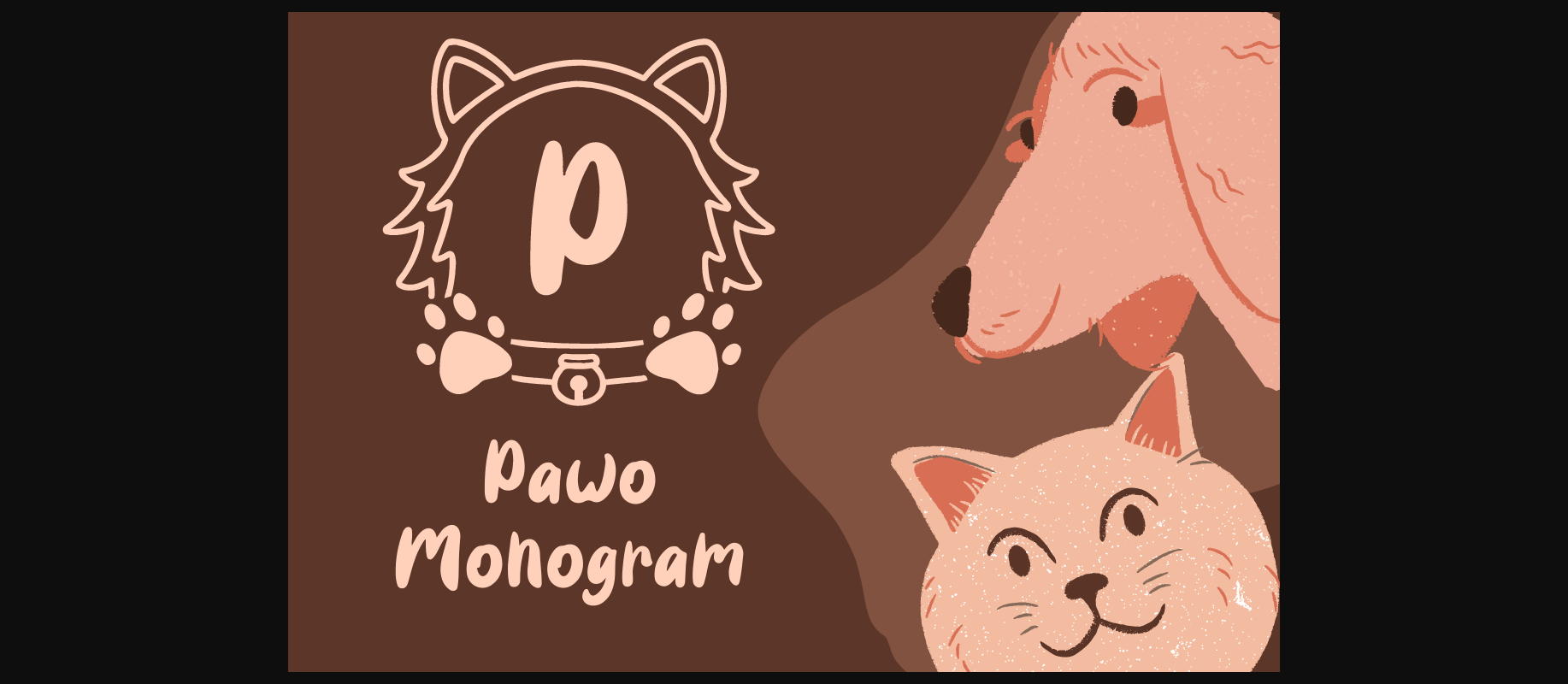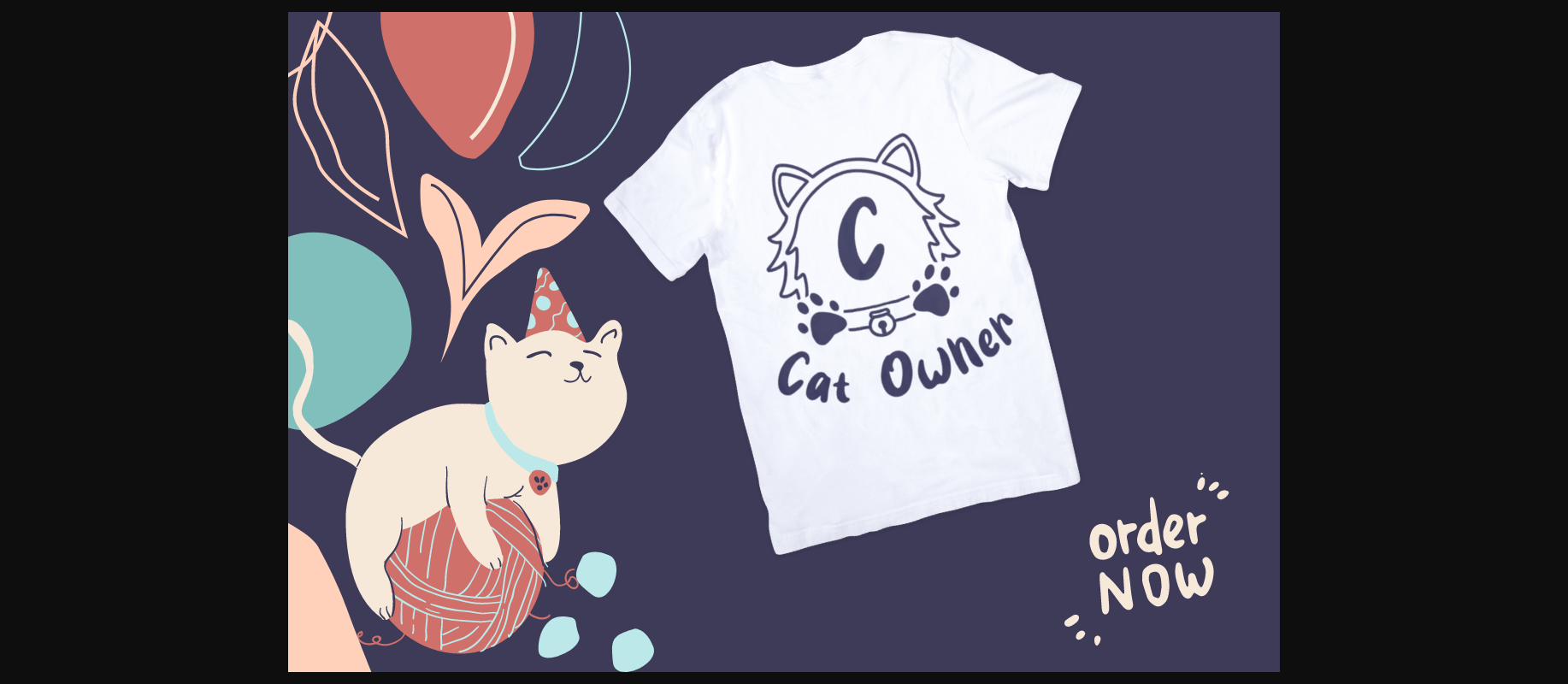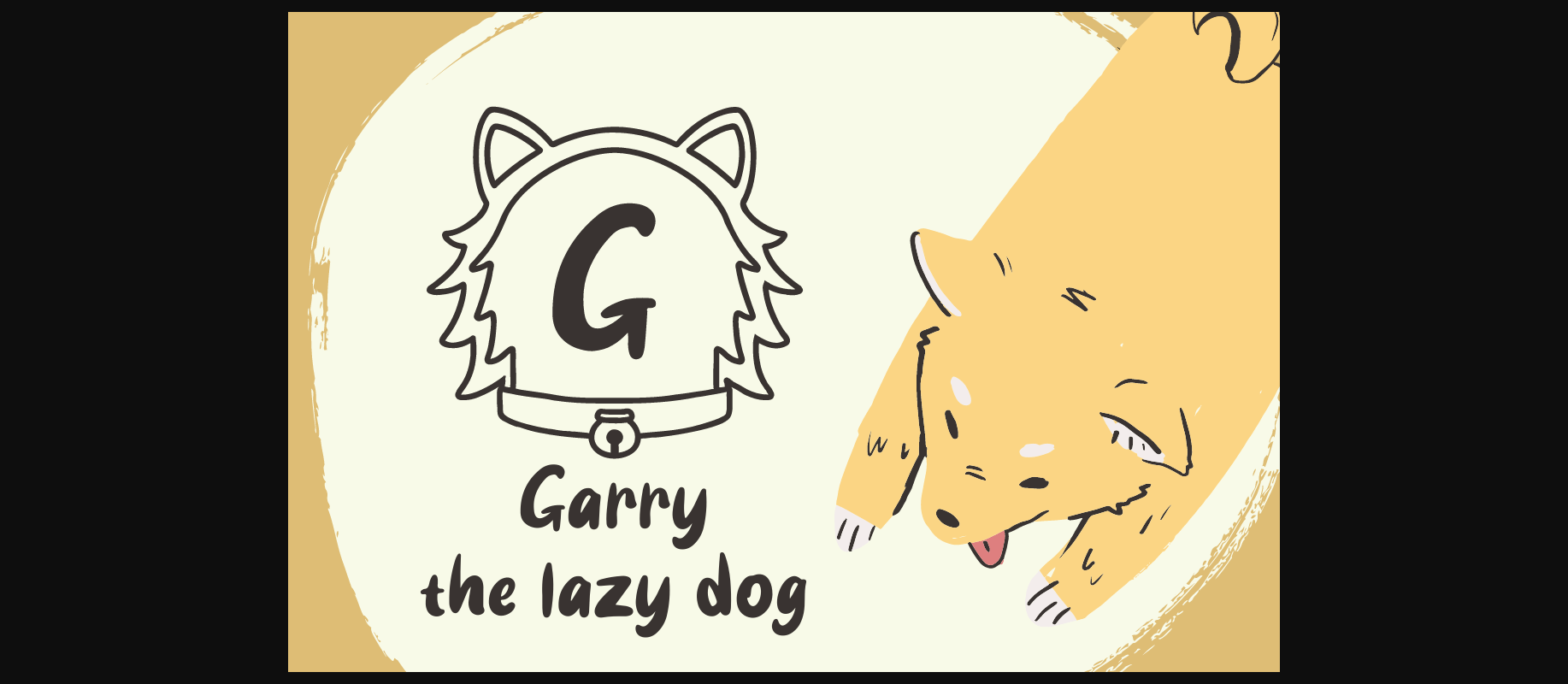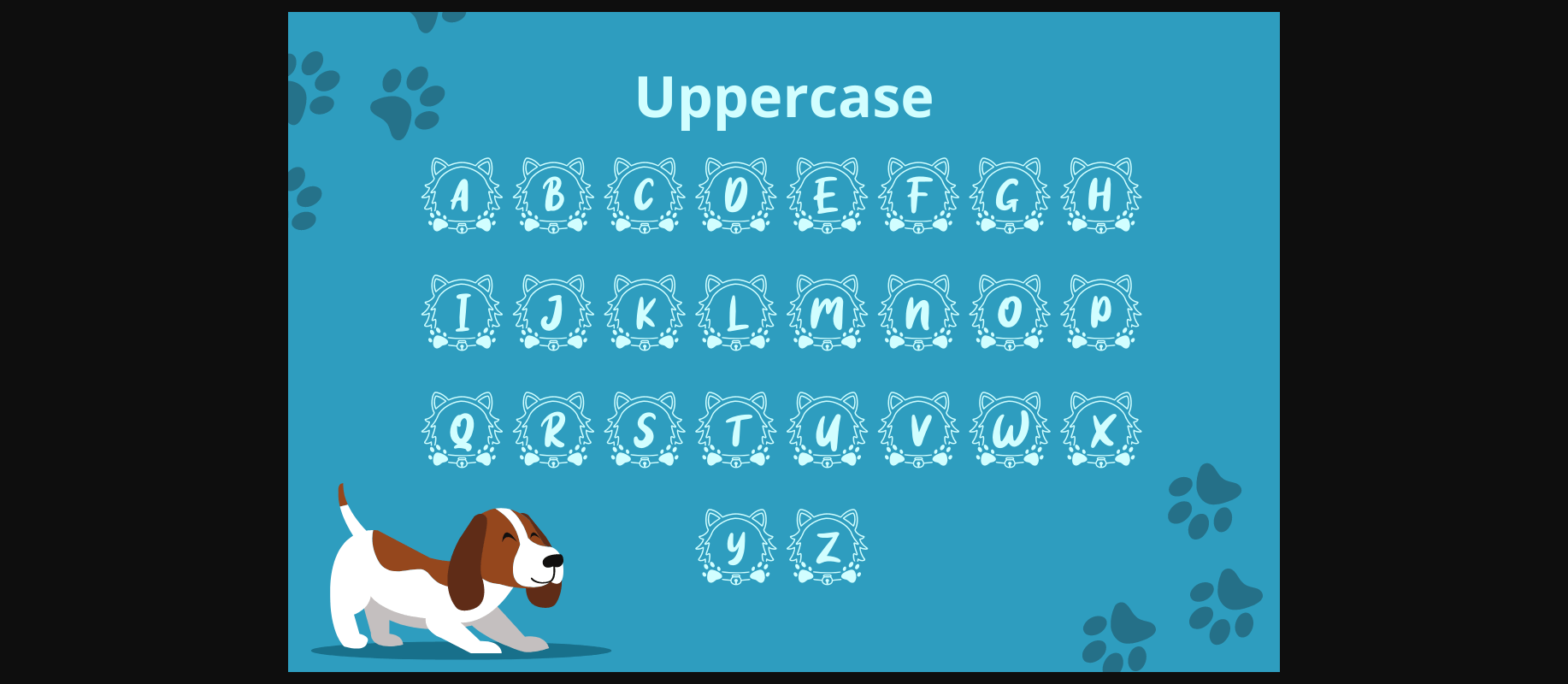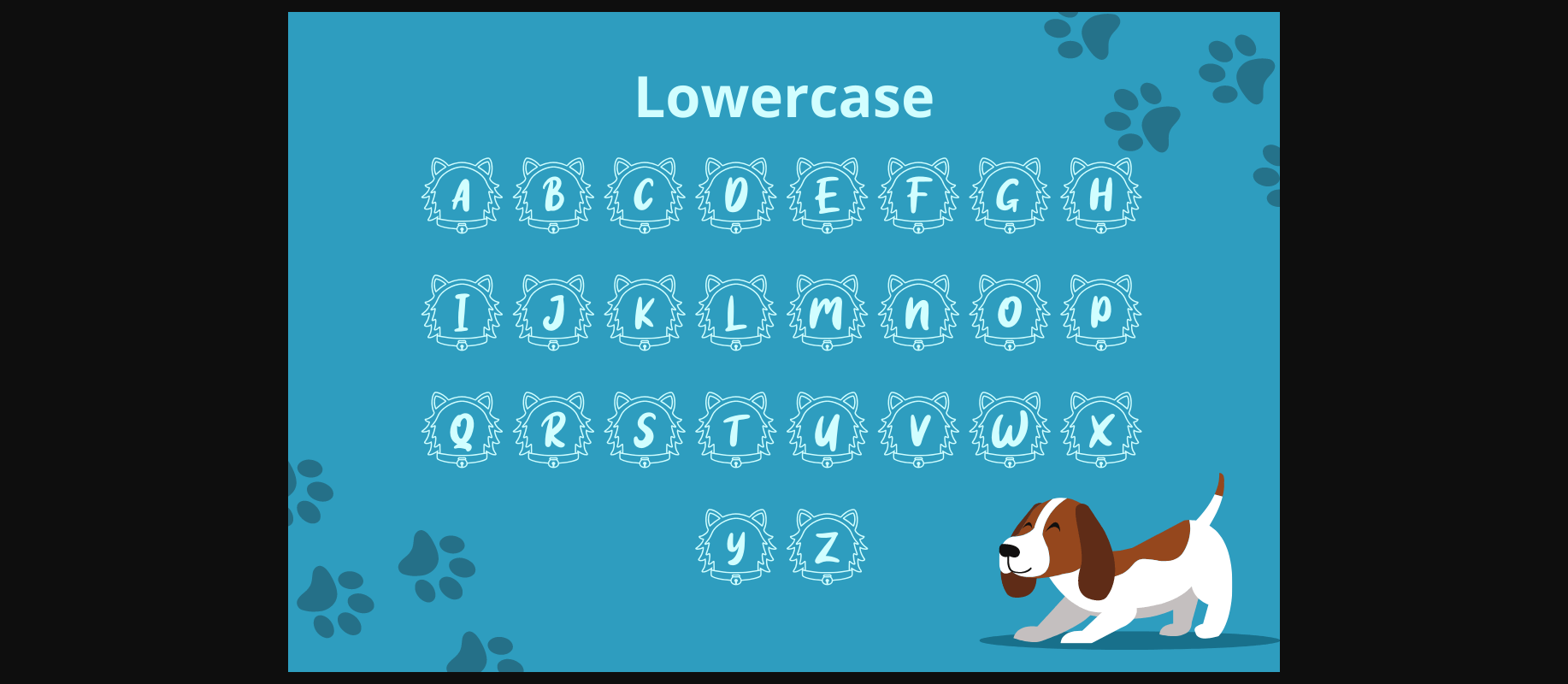
About Pawo Monogram Font
Pawo Monogram is an animal-themed monogram font. Fall in love with cute and lovely designs for your special pet or animal, business designs, logos, branding, social media posts, and wedding cards.
Just simply change between uppercase and lowercase to see the different styles!